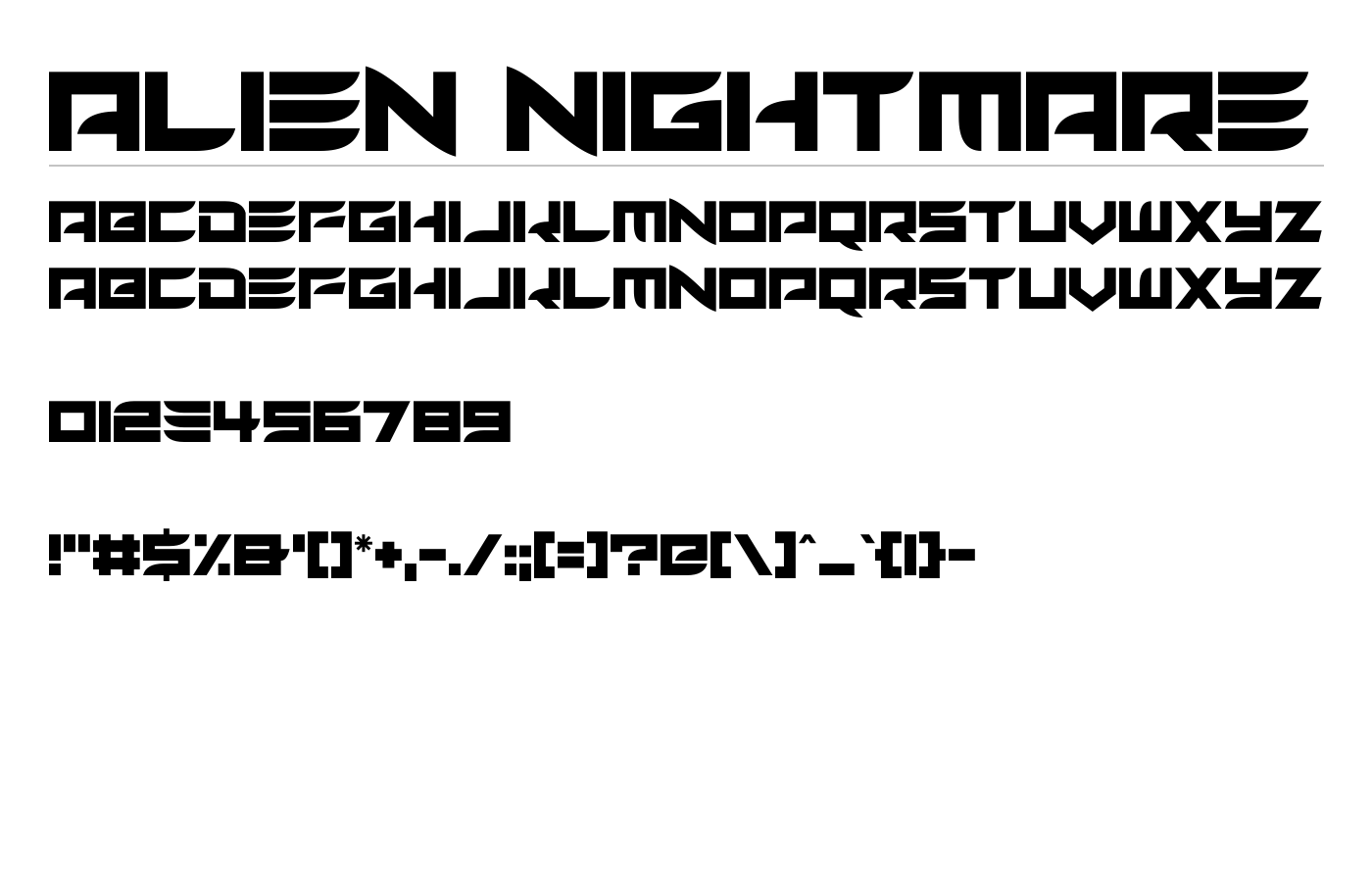
Alien Nightmare is a bold, geometric sans serif font with a striking sci-fi and futuristic vibe. Its sharp angles and thick strokes create a powerful, tech-inspired look perfect for eye-catching headlines, logos, and designs that want to convey innovation or a space-age atmosphere. This font works well for projects in gaming, technology, and entertainment where a strong, modern identity is needed.
Alien Nightmare Font
About Alien Nightmare Font
| Font family | Alien Nightmare Font |
| Designer | Darrell Flood |